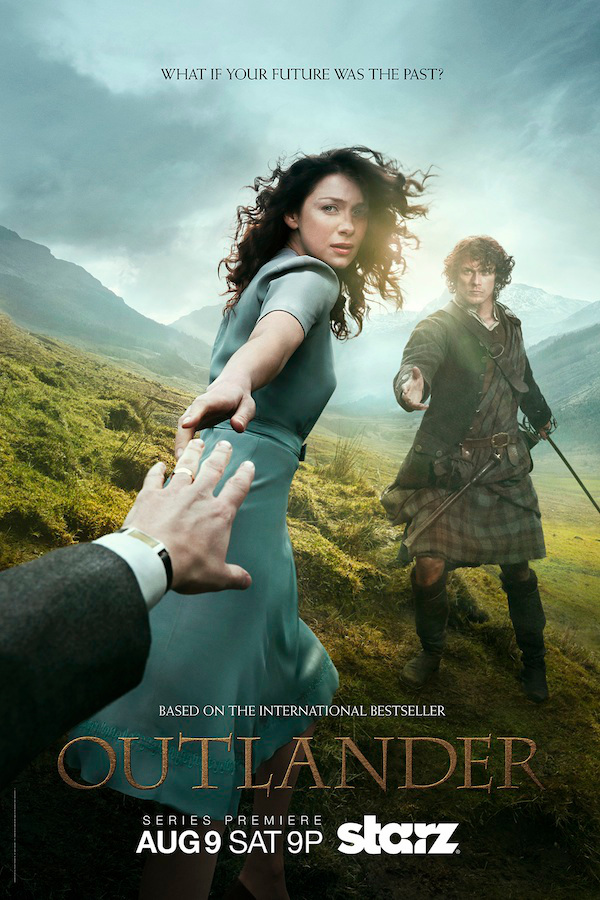
Outlander Font
DramaOutlander is a historical fiction and romance television series based on the novels by Diana Gabaldon. The show follows the story of a nurse from 1945 who is transported back in time to 1743 and falls in love with a Scottish warrior, leading her to navigate the complexities of life in 18th century Scotland.
The title of the TV series uses Charlemagne Regular, a roman serif font designed by Carol Twombly. The font is inspired by classical roman letterforms revived during Charlemagne's reign and refined versal capitals of England from the late 10th century.